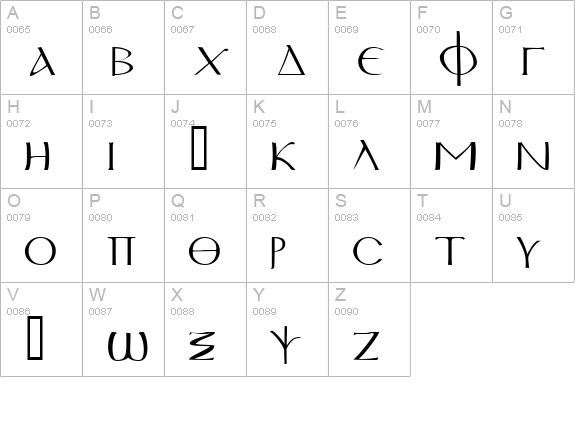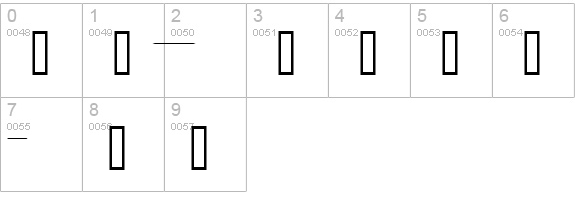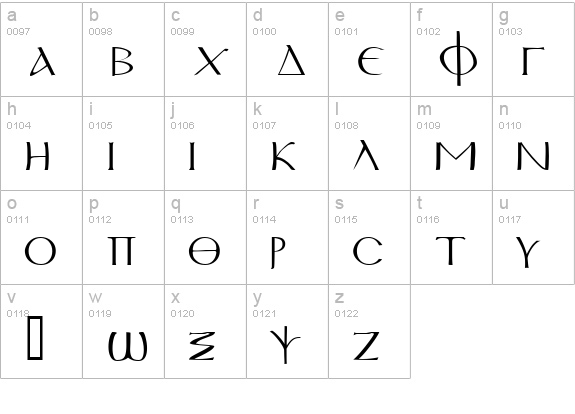
Sinaiticus Font Details
Sinaiticus font is an exquisite typeface that exudes elegance and sophistication. With its sleek and clean lines, this font is perfect for various design projects, from branding and logos to invitations and headlines. Its timeless appeal and versatility make it a go-to choice for both digital and print media. What sets Sinaiticus font apart is not just its stunning aesthetics, but also its incredible accessibility. It is available for free download at FontsMarket.com, making it easily accessible to designers and creatives looking to add a touch of class to their work without breaking the bank. This font offers the opportunity to create professional-looking designs without compromising on quality or budget. The carefully crafted letterforms of Sinaiticus font are a testament to the dedication and skill of its designer. Each character has been meticulously designed to ensure legibility and visual harmony, resulting in a font that is both pleasing to the eye and easy to read. The graceful curves and balanced proportions make Sinaiticus font a true work of art. Whether used in bold headlines or subtle body text, Sinaiticus font effortlessly captures attention and adds a touch of sophistication to any project. Its versatility allows it to be used in a variety of design styles, from modern and minimalist to classic and vintage. With Sinaiticus font, designers have the freedom to unleash their creativity and create stunning visuals that leave a lasting impression. Its availability as a free download on FontsMarket.com makes it a valuable asset for designers, allowing them to experiment and explore the endless possibilities that this font offers. In conclusion, Sinaiticus font is a free, elegant, and versatile typeface that adds a touch of sophistication to any design project. Its impeccable craftsmanship and accessibility make it a must-have for designers and creatives seeking to elevate their work. Download Sinaiticus font from FontsMarket.com today and unlock the potential to create visually stunning and impactful designs.